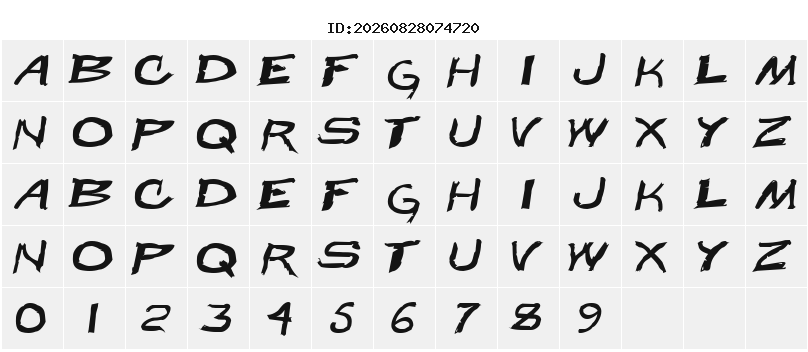
Transformers Beast Wars Preview
• Font Name: Transformers Beast Wars
• Full Font Name: Transformers Beast Wars
About Transformers Beast Wars.ttf
Transformers Beast Wars.ttf is a modern, elegant sans-serif font designed for ultimate readability and visual harmony. Perfect for branding, headlines, web design, and print materials.